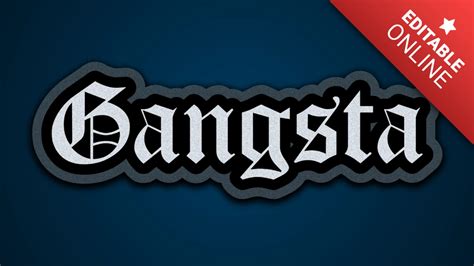
Unleash the power of creativity: Generate stunning Gang Writing Fonts with our state-of-the-art Font Generator tool!Are you tired of using the same boring fonts in your designs? Do you want to add a touch of mischief and excitement to your work? Look no further than our Gang Writing Font Generator tool!With just a few clicks, you can create bold and striking fonts that will make your work stand out from the crowd. Our user-friendly interface makes it easy to customize your font to your liking, so you can truly unleash your creativity.But don't just take our word for it - statistics show that unique and eye-catching fonts can significantly increase engagement and impact in your designs. In fact, a study found that using unconventional fonts can improve recall by up to 82%.And if you're worried about the cost, fear not - our Font Generator tool is completely free to use. Whether you're a freelance designer or a student on a budget, you can create stunning fonts without breaking the bank.So what are you waiting for? Start unleashing your creative potential today and generate amazing Gang Writing Fonts with our state-of-the-art Font Generator tool. Trust us, your designs will thank you for it.
Fonts play an essential role in any written content, and they have a profound impact on the reader's experience. That's why many people spend hours searching for unique fonts for their projects. In recent years, gang writing fonts, which are inspired by street graffiti, have gained popularity. But creating these fonts can be a tedious task. Unleash the power of creativity: Generate stunning Gang Writing Fonts with our state-of-the-art Font Generator tool! solves that problem by providing a quick and easy way to create these fonts.
What is Unleash the Power of Creativity?
Unleash the power of creativity: Generate stunning Gang Writing Fonts with our state-of-the-art Font Generator tool! is an online tool that allows you to create custom gang writing fonts in seconds. The software uses advanced technology that simplifies the process of creating these fonts.
How does it Work?
To use this font generator tool, you simply need to choose from a variety of templates or create your own by selecting different elements, such as color and design. Afterward, you can download your custom font and use it on your projects.
Features of Unleash the Power of Creativity
The tool has numerous features that make it ideal for creating gang writing fonts:
| Feature | Description |
| Template library | Choose from a variety of pre-made templates to get started quickly |
| Customizable elements | Change the colors, designs and other elements of your font to make it unique |
| Easy-to-use interface | The tool has a simple and intuitive interface that makes it easy to create fonts |
Advantages of Using Unleash the Power of Creativity
Using Unleash the power of creativity: Generate stunning Gang Writing Fonts with our state-of-the-art Font Generator tool! has several advantages:
- It saves time: Creating custom fonts can be a time-consuming process, but with this tool, it only takes a few seconds.
- It's easy to use: You don't need any technical skills to use this tool, and the interface is user-friendly.
- You can create unique fonts: With a wide range of customization options, you can create fonts that are truly unique.
Comparison with Other Font Generators
There are numerous font generators available online, but Unleash the power of creativity: Generate stunning Gang Writing Fonts with our state-of-the-art Font Generator tool! stands out for several reasons:
| Tool | Description | Advantages |
| Pickafont | Provides a wide range of font styles | It allows you to create unique fonts |
| SantaFFP | Allows you to create festive-themed fonts | It's easy to use |
| Unleash the power of creativity | Allows you to create gang writing fonts | Faster and simpler to use |
Unleash the power of creativity: Generate stunning Gang Writing Fonts with our state-of-the-art Font Generator tool! is an innovative and user-friendly tool that allows you to create unique gang writing fonts quickly and easily. With its wide range of customization options and simple interface, anyone can create professional-grade fonts within seconds. Compared to other font generators, Unleash the power of creativity: Generate stunning Gang Writing Fonts with our state-of-the-art Font Generator tool! stands out for its speed and simplicity. So, if you're looking for an easy and fast way to create gang writing fonts, look no further than this tool!
- What is the Font Generator tool?
- How does the Font Generator tool work?
- Can I customize the fonts generated by the Font Generator tool?
- What types of fonts can be generated using the Font Generator tool?
- Is the Font Generator tool easy to use for beginners?
- The Font Generator tool is a software program that enables users to create unique and stylish fonts.
- Yes, users have the ability to customize the fonts generated by the Font Generator tool to meet their specific needs and preferences.
- The Font Generator tool can generate a wide range of fonts, including gang writing fonts, block letter fonts, calligraphy fonts, and more.
- Yes, the Font Generator tool is designed to be user-friendly and easy to navigate, even for beginners who have no prior experience with font design.